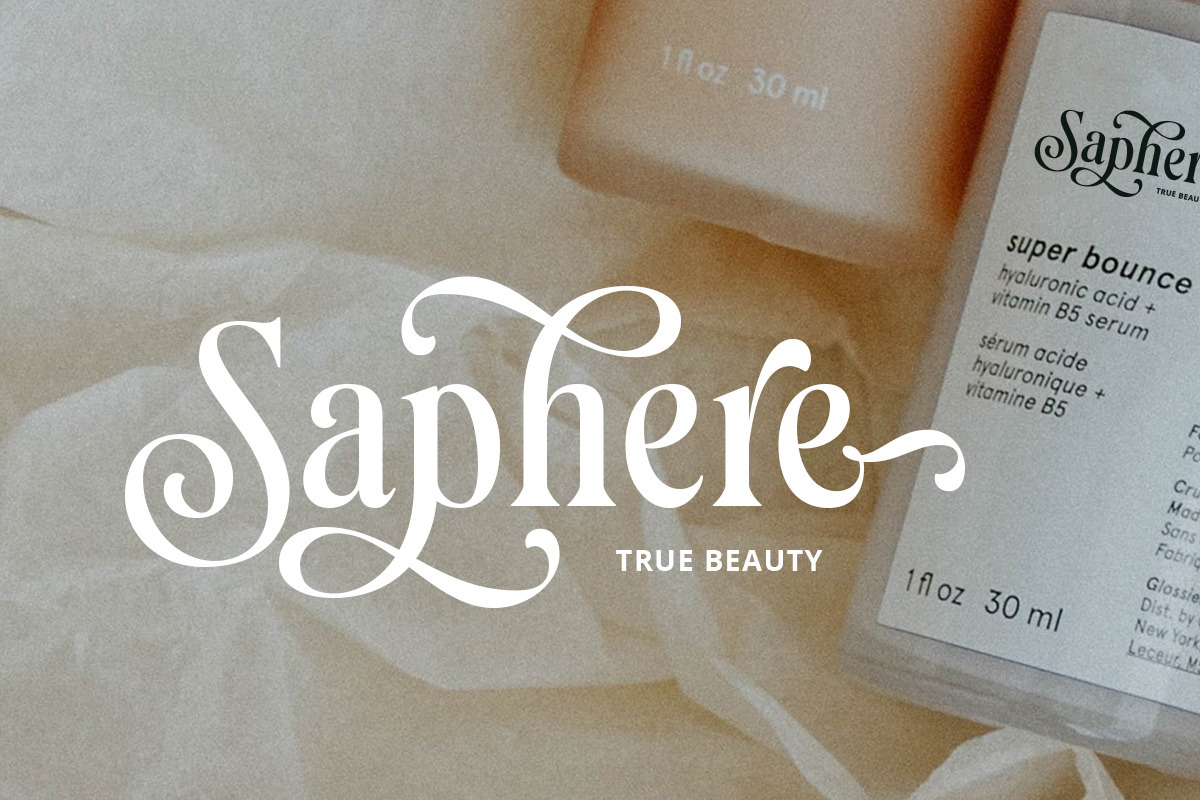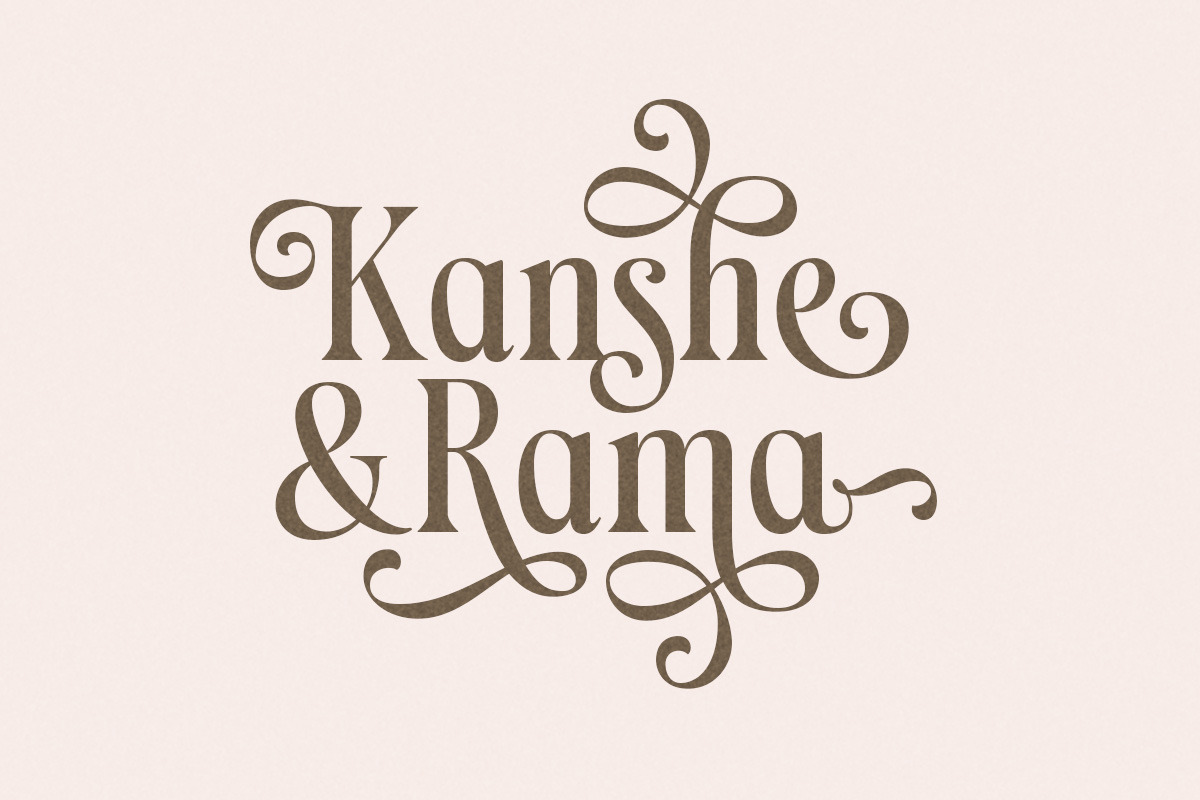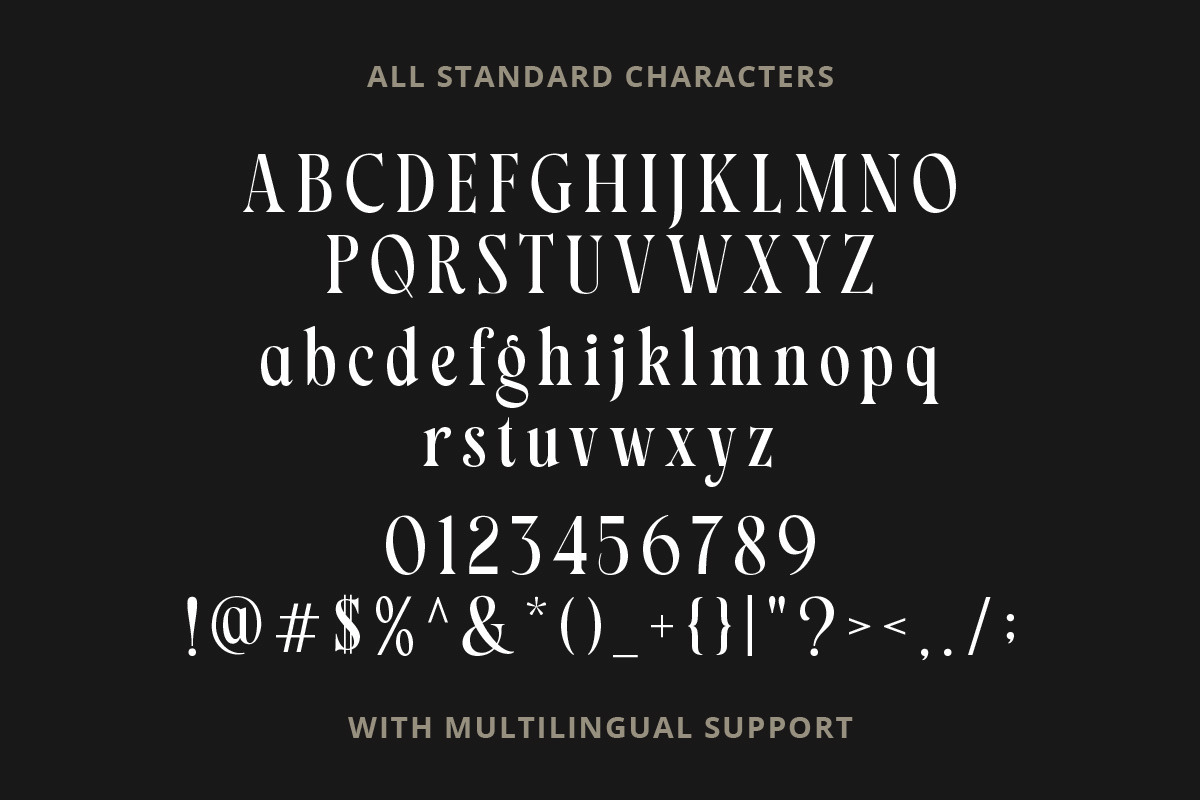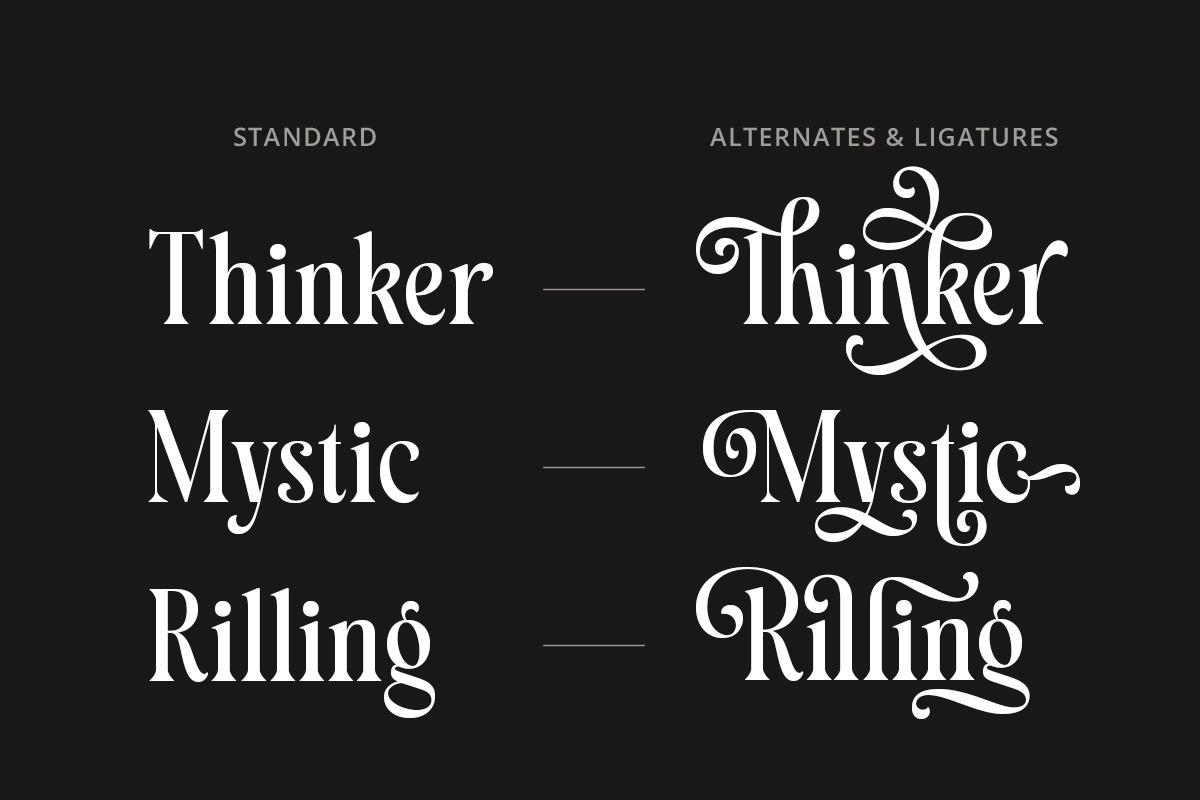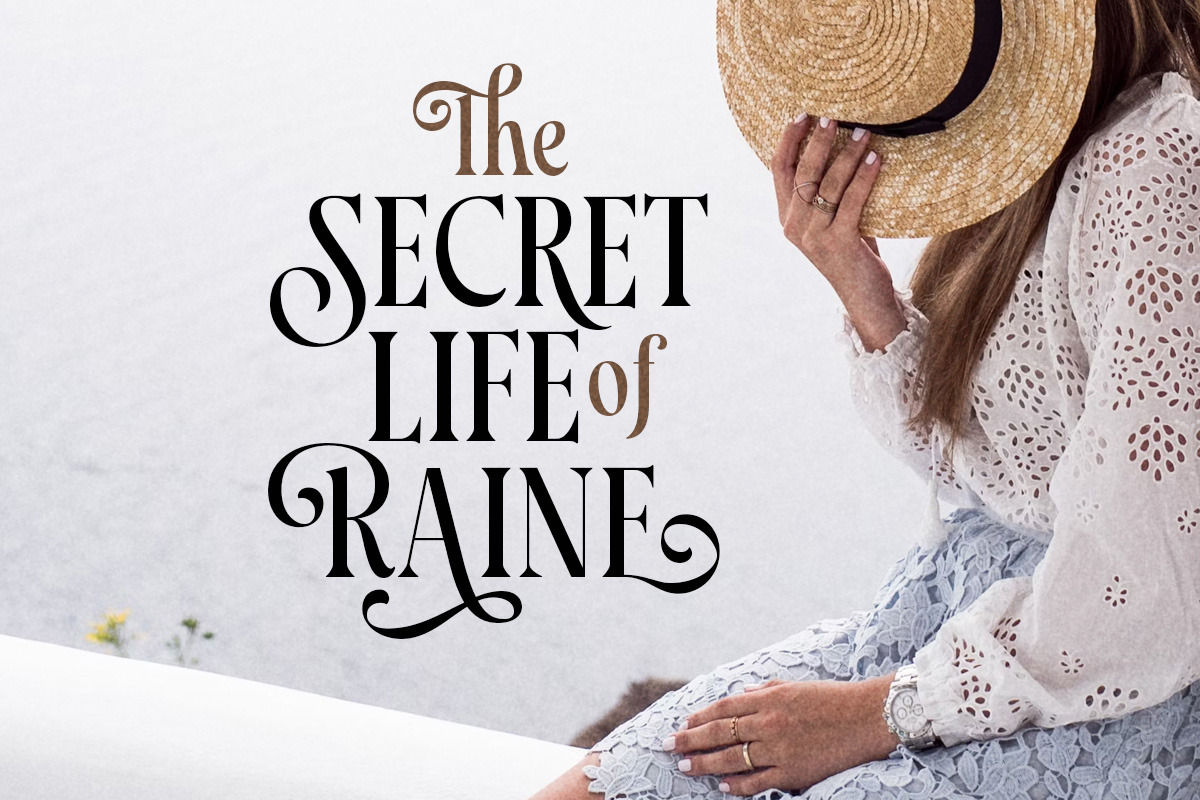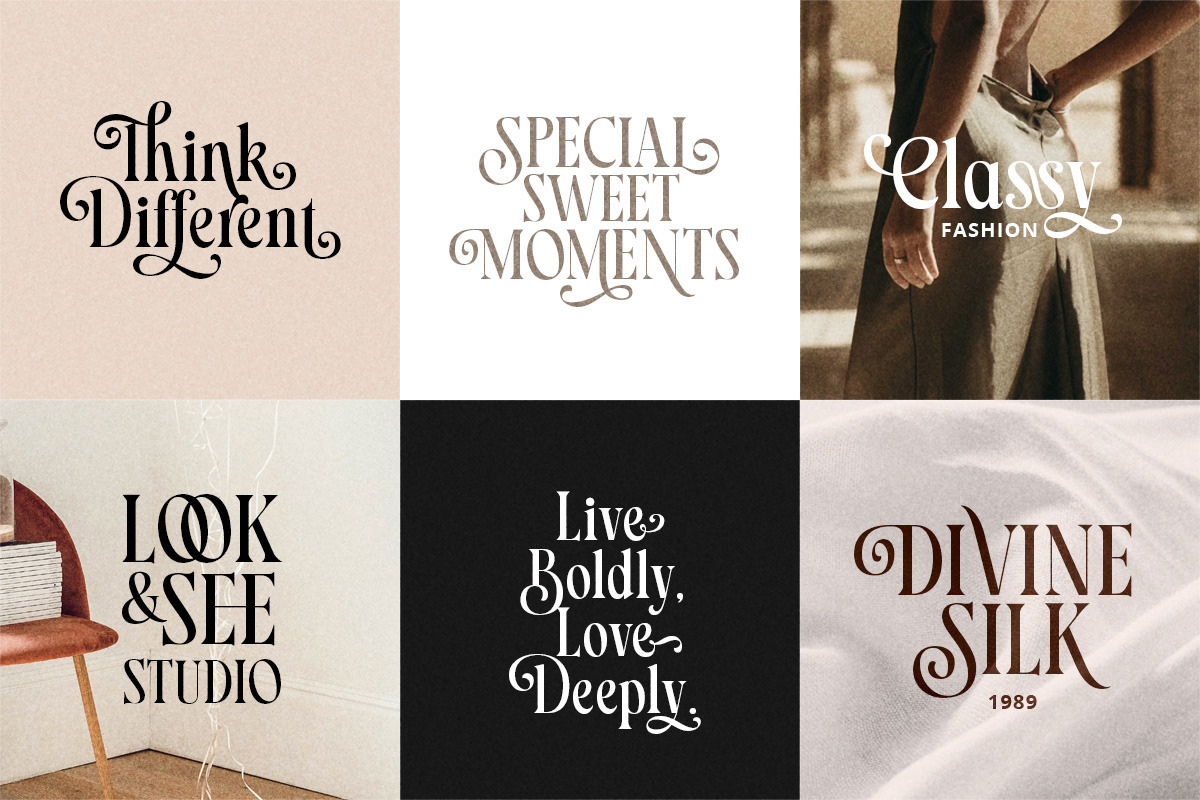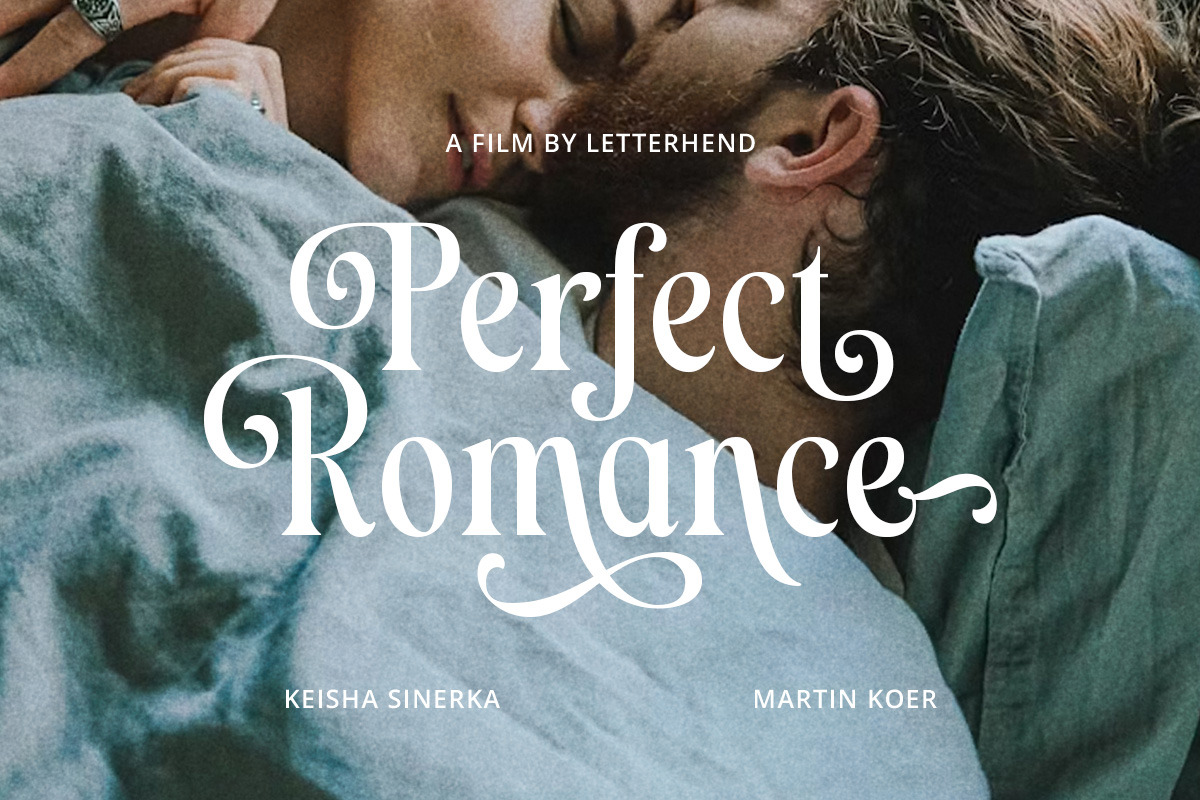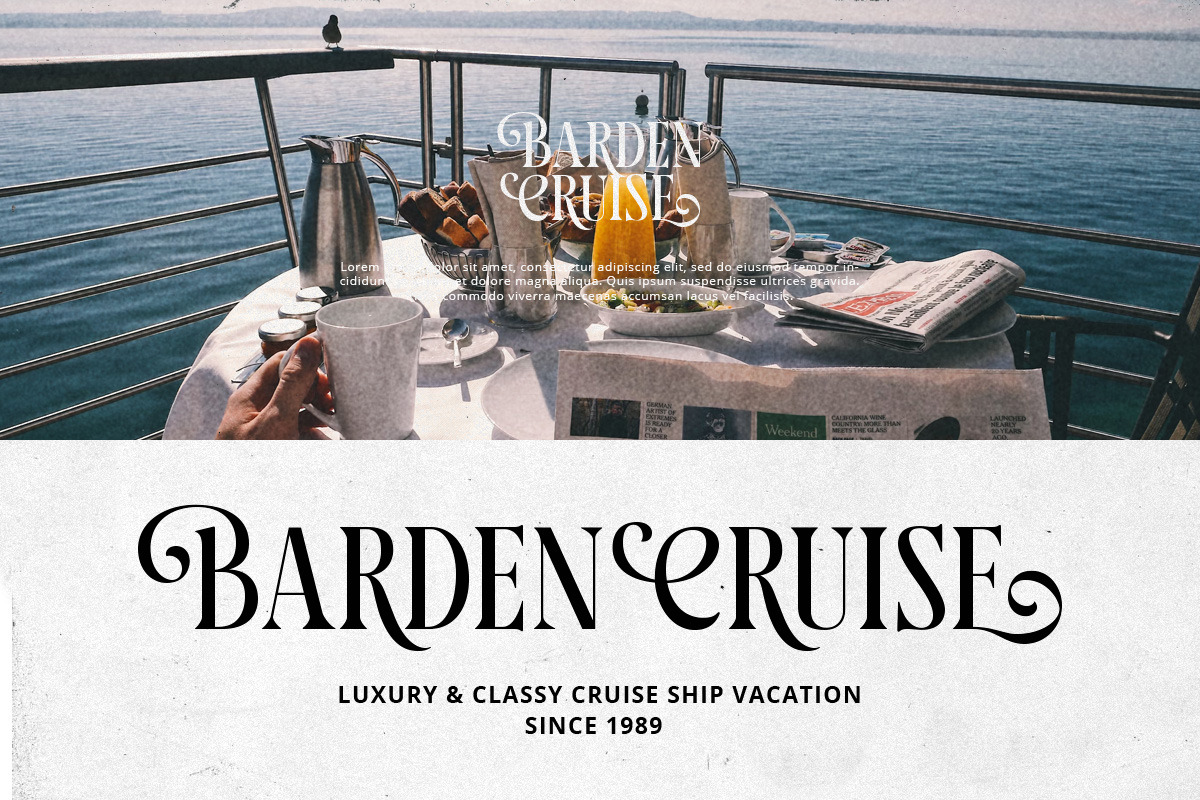
Markstyle Stylish Serif
Markstyle is a stylish serif font with elegant curves, decorative swashes, and refined ligatures. Perfect for branding, packaging, wedding invitations, and luxury designs, it adds a sophisticated touch to any project. With plenty of alternates and ligatures, you can create unique and stunning typography effortlessly.